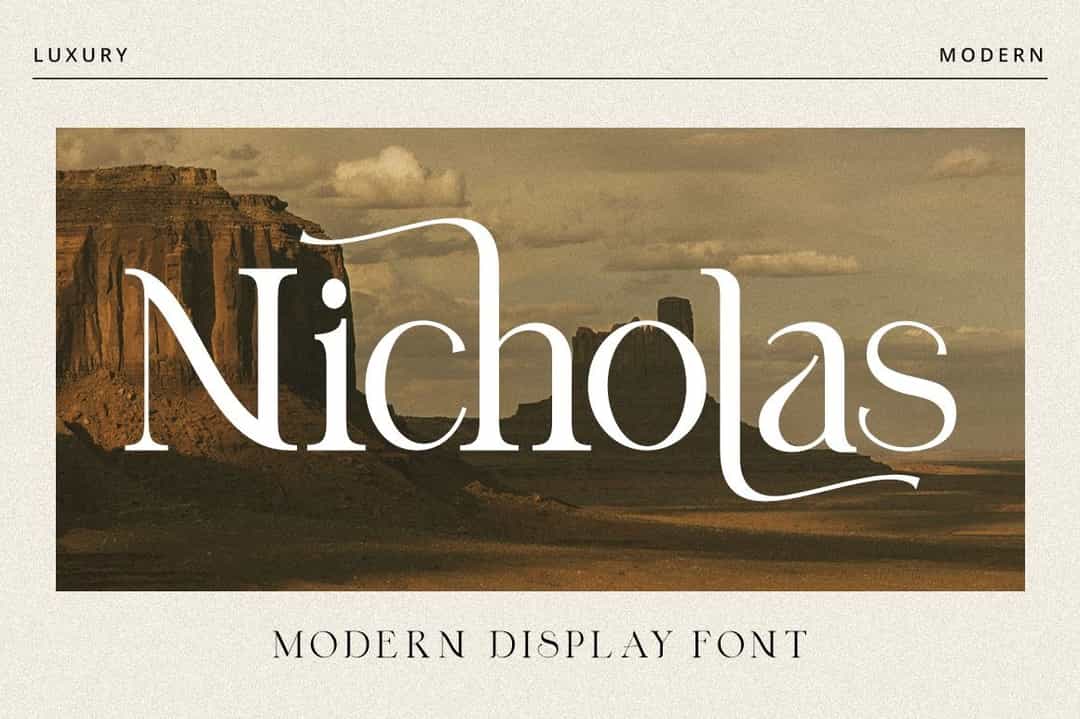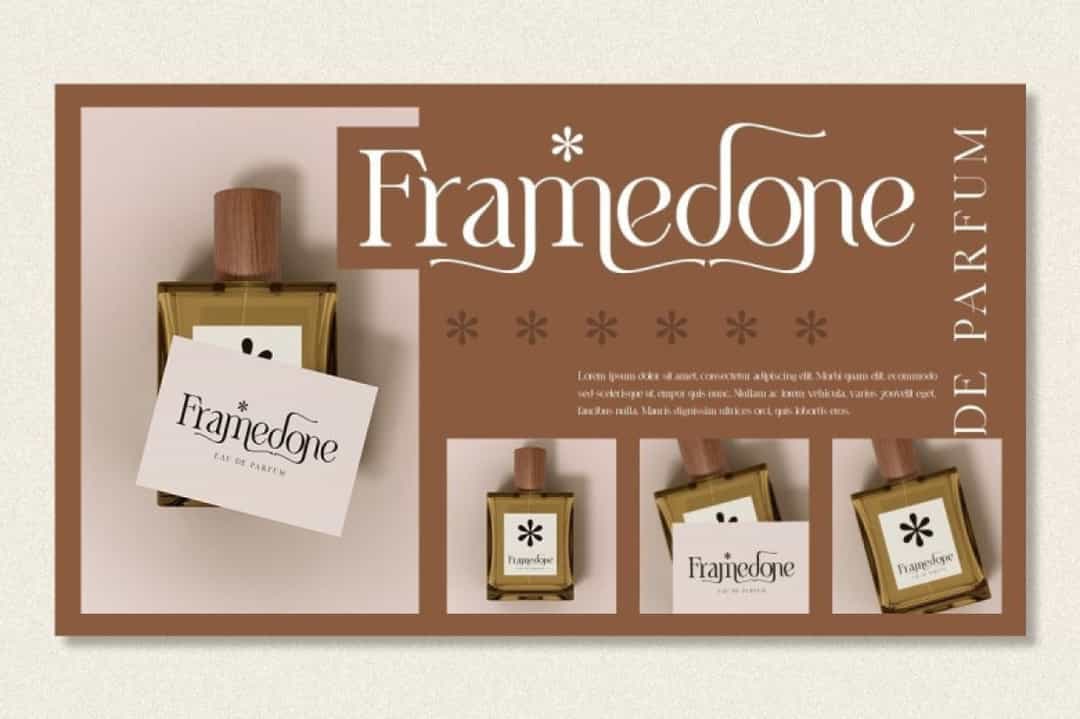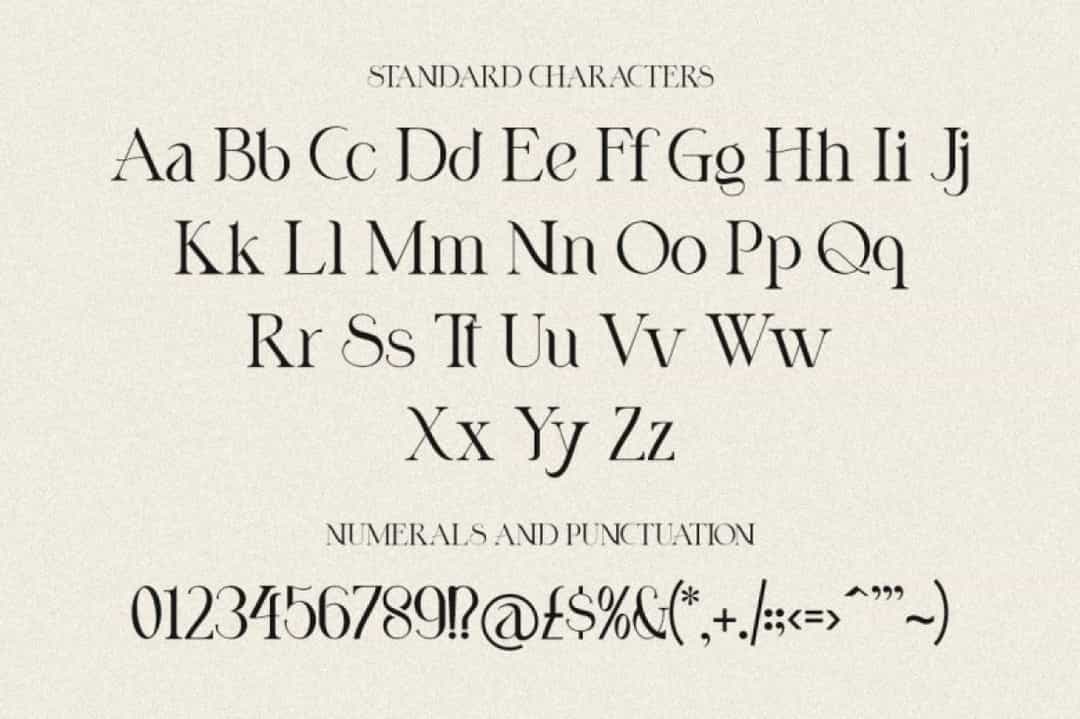
Nicholas is a serif display font that is refined but does not make a show of it. Nicholas is unique because of the fine lettering design that can be used for both formal as well as informal purposes.